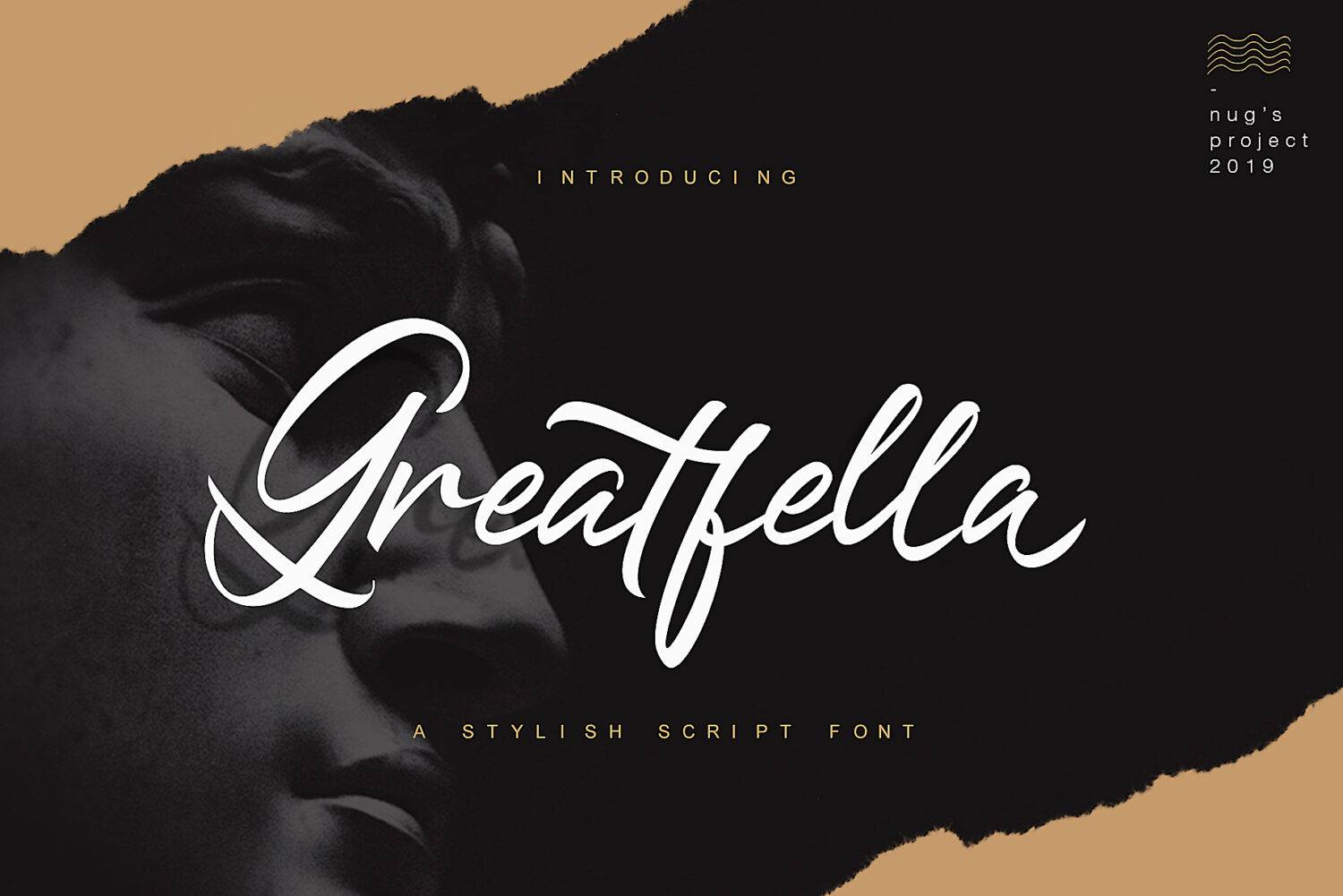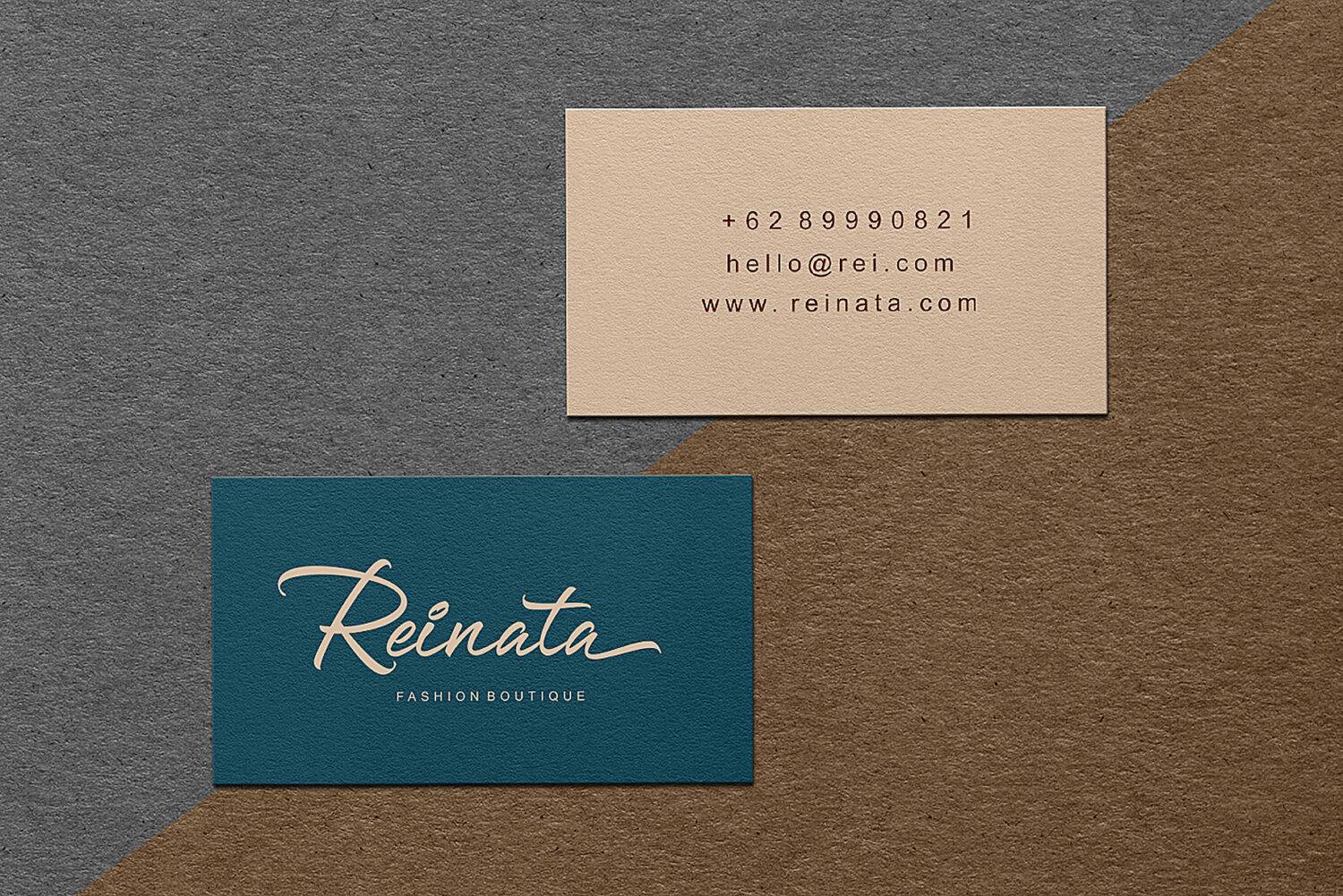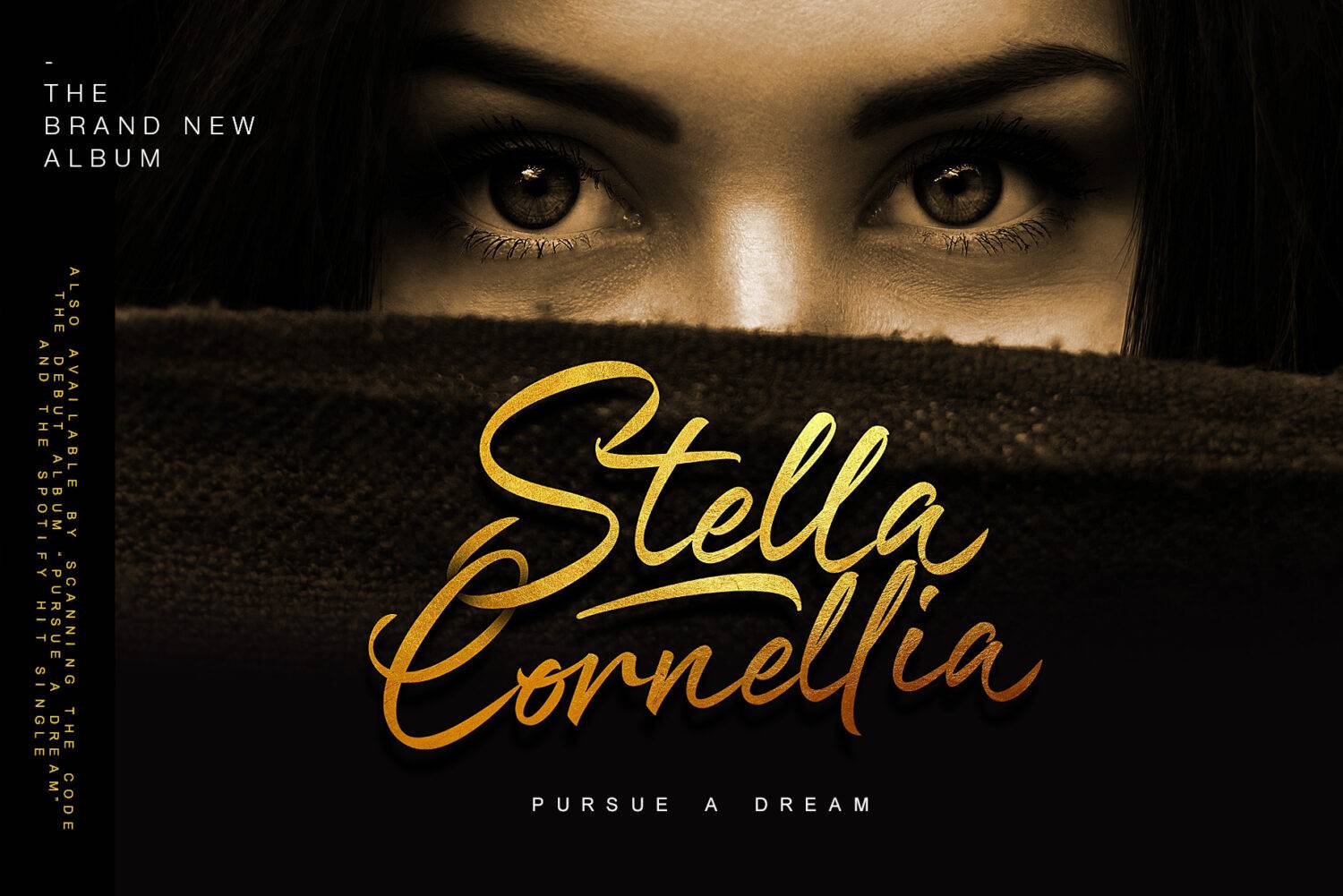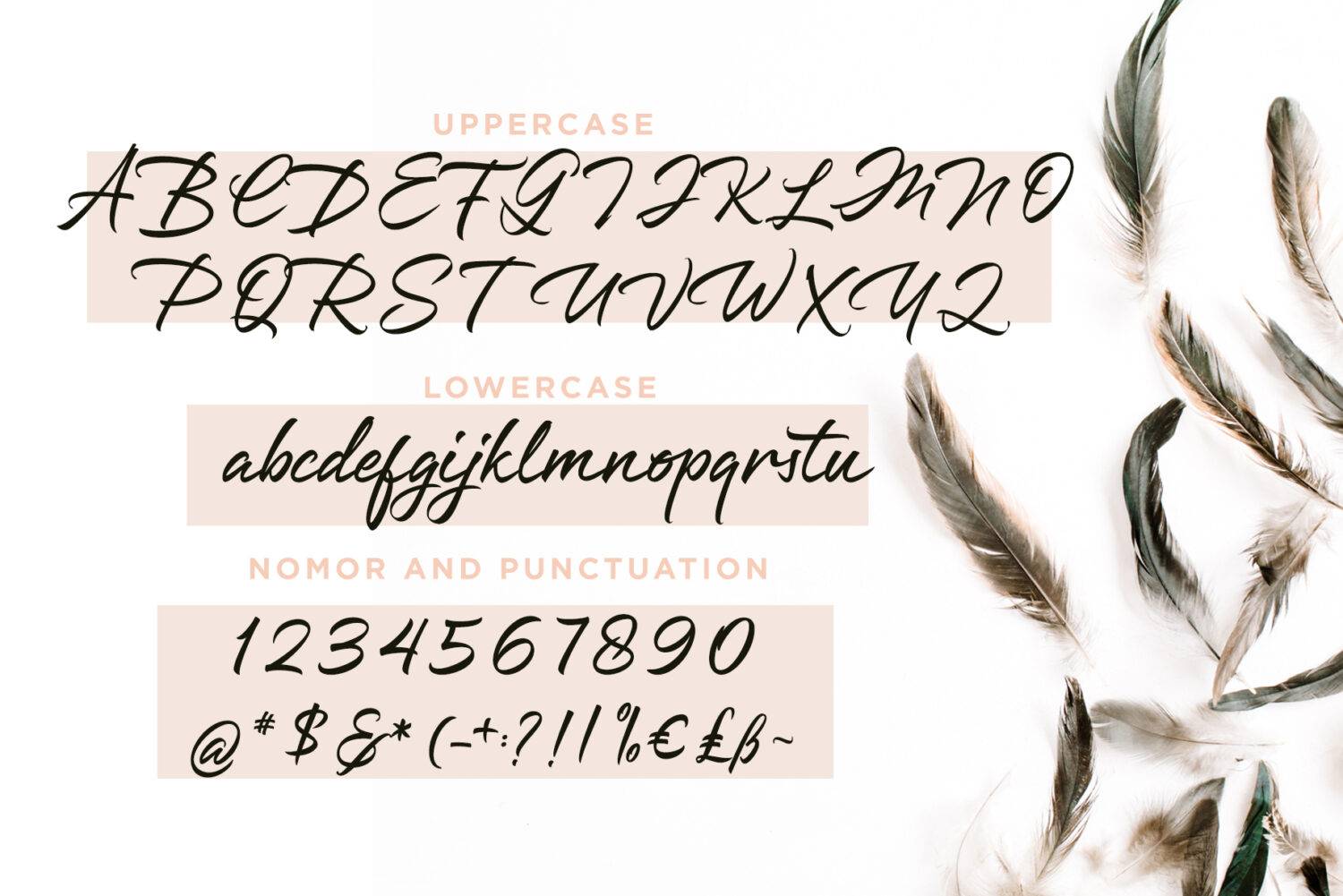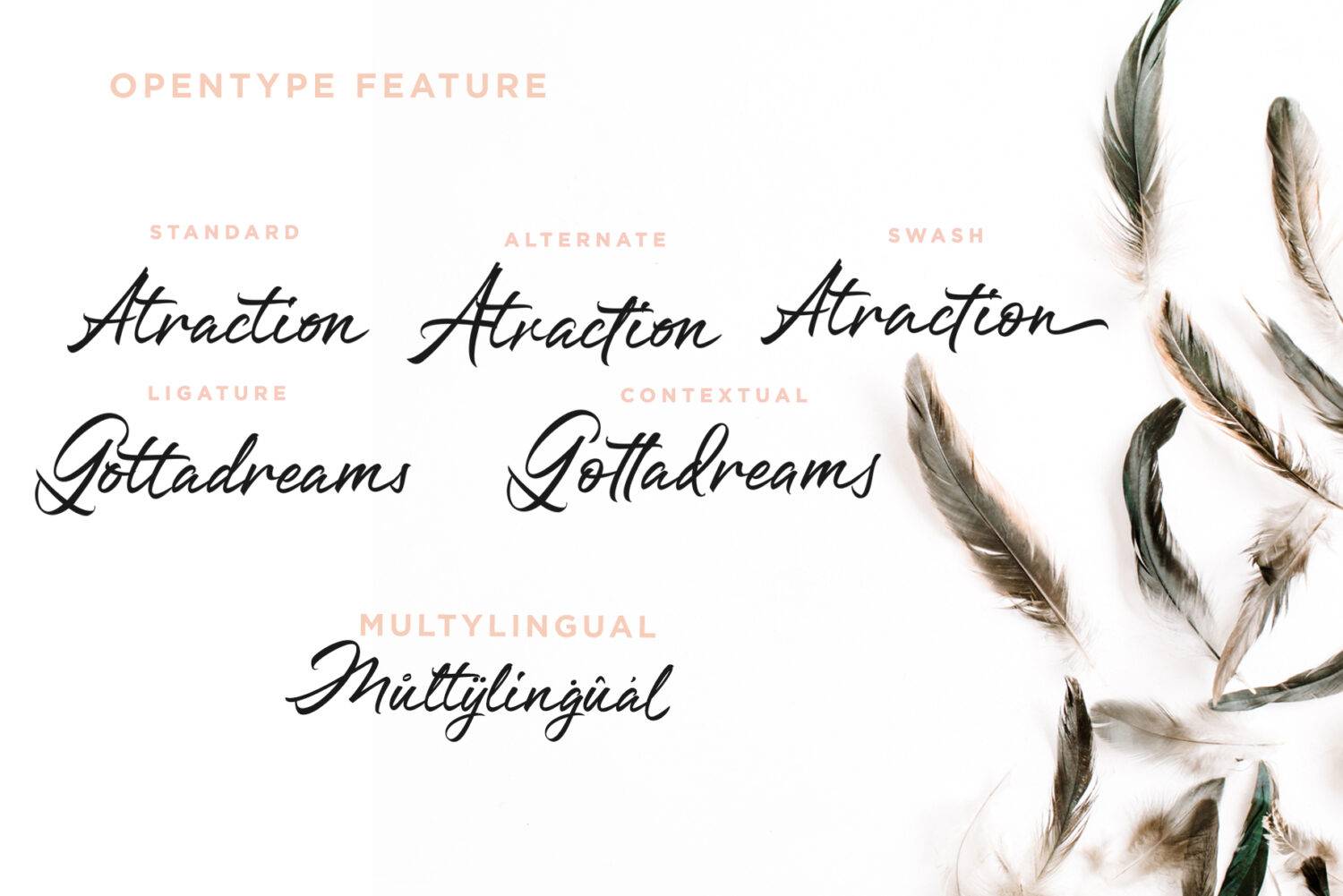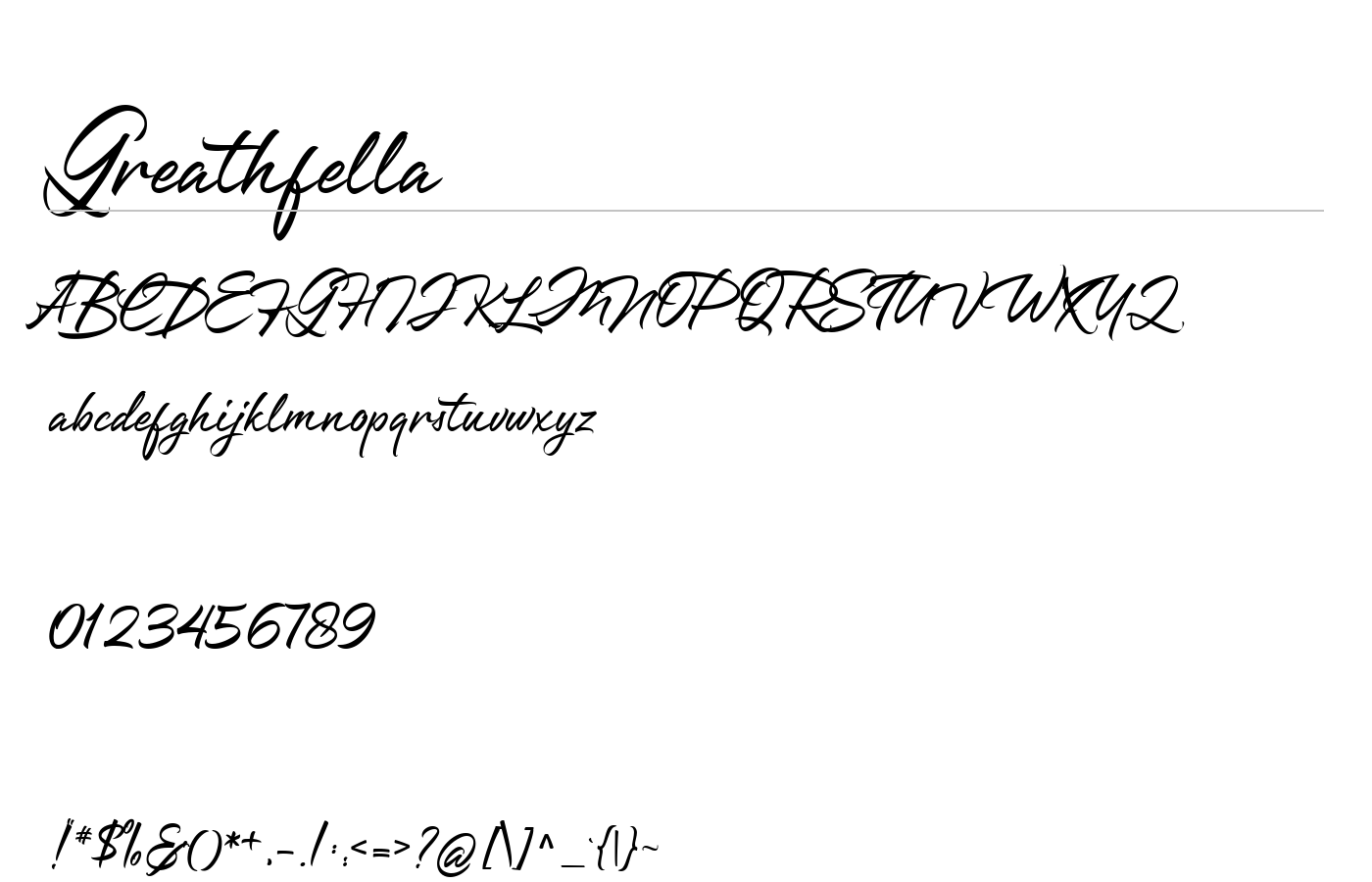
Greatfella is an elegant script font with a smooth, flowing style that mimics graceful handwriting. Its light weight and slender, connected letterforms create a refined and sophisticated look, making it ideal for luxury branding, invitations, and stylish headlines. This font’s delicate curves and balanced spacing give it a charming personality that works well in designs requiring an upscale yet approachable feel.
Greatfella Font
About Greatfella Font
| Font family | Greatfella Font |
| Designer | Andrie Nugrie |